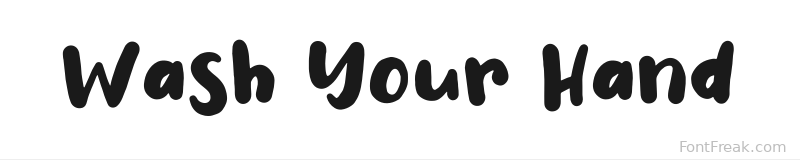
Wash Your Hand
The "Wash Your Hand" font by Syaf Rizal is a delightful display typeface that captures a playful yet modern essence. Designed with a handwritten style, it features bold, rounded letterforms that convey a sense of friendliness and approachability. The stroke weight is consistent with a slight variation that adds a touch of personality, while the overall spacing is well-calibrated to ensure readability. The font boasts a lack of sharp edges, giving it a soft appearance that is both inviting and engaging.
This font is ideal for a variety of creative applications. It shines in contexts where a lighthearted tone is desired, making it perfect for children's educational materials, fun event flyers, or vibrant restaurant menus that aim to create a cheerful atmosphere. Additionally, the "Wash Your Hand" font is a fitting choice for social media graphics and promotional materials focused on health and hygiene campaigns. Its visually appealing design can enhance the thematic elements of wedding invitations, especially those with a casual or whimsical flair.
Targeting graphic designers, small business owners, and content creators, this font offers versatility that can cater to various branding needs. Whether you are looking to inject personality into a project or create a memorable visual identity, "Wash Your Hand" serves as an excellent tool.
What sets the "Wash Your Hand" font apart is its ability to combine fun and functionality. Its unique character and approachable style make it stand out among standard typefaces, providing a fresh perspective that can elevate your designs. Plus, with the "Wash Your Hand font free download," it is easily accessible for anyone looking to enhance their creative projects without breaking the bank.